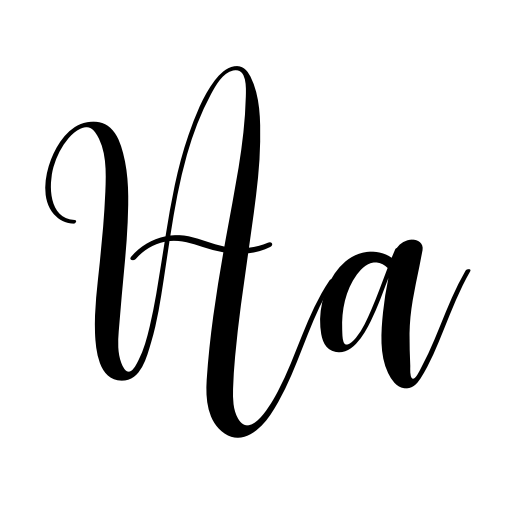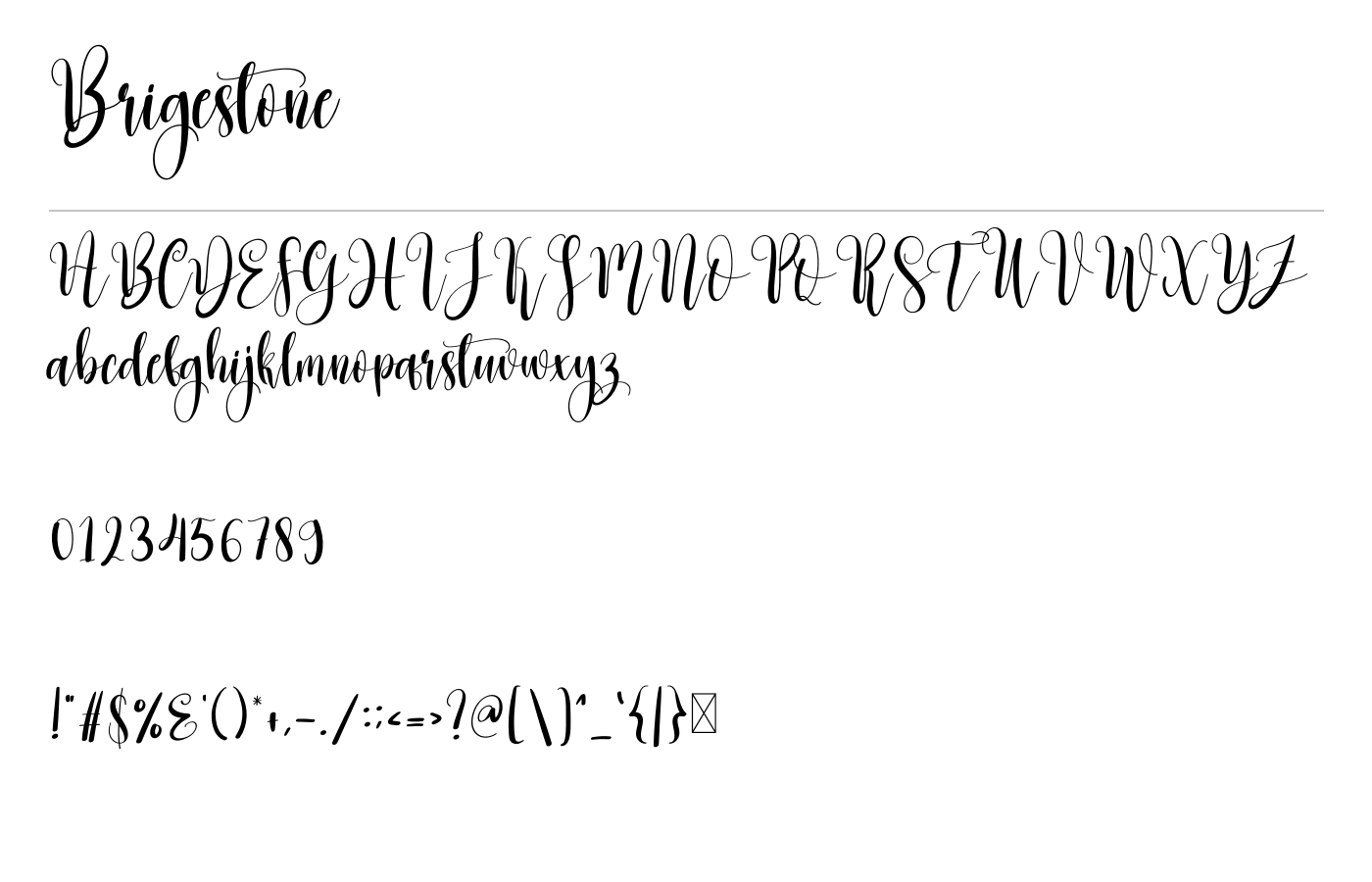
Brigestone is a delicate, elegant script font characterized by its flowing, calligraphic strokes and playful swashes that add a graceful, handcrafted feel. Its light weight and high contrast between thick and thin lines make it perfect for stylish invitations, branding, and creative projects that seek a romantic or sophisticated personality. This font shines in decorative headlines and logos where a touch of charm and elegance is desired.
Brigestone Font